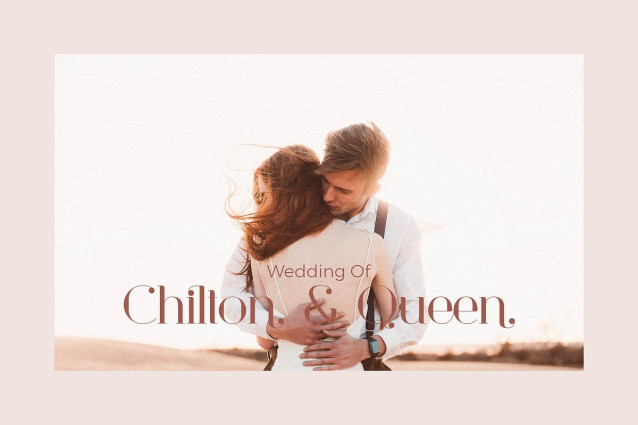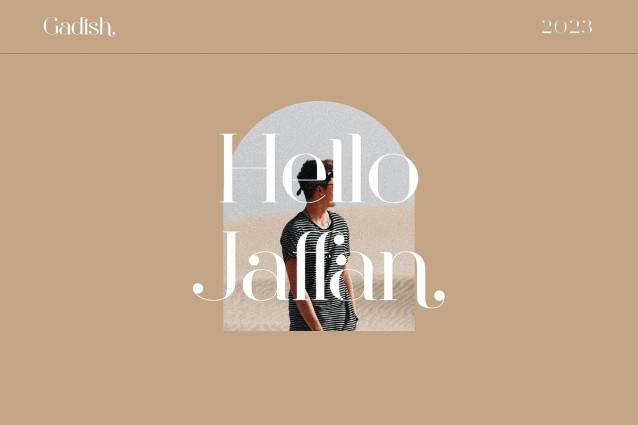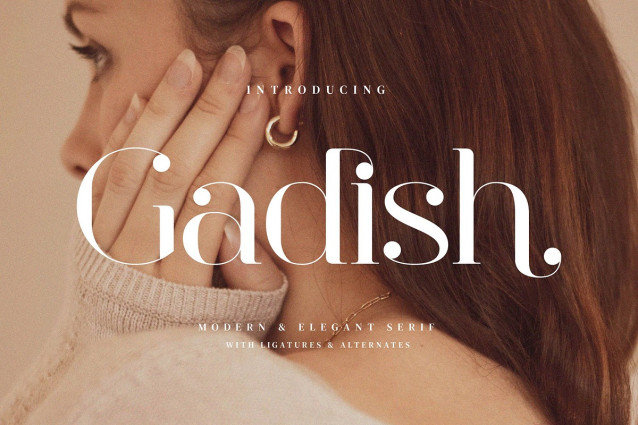
Gadish Font
Gadish Font – Stylish Ligature Typeface, inspired by the famous minimalist logo perfect for the purposes of designing templates, brochures, videos, advertising branding, logos and more.